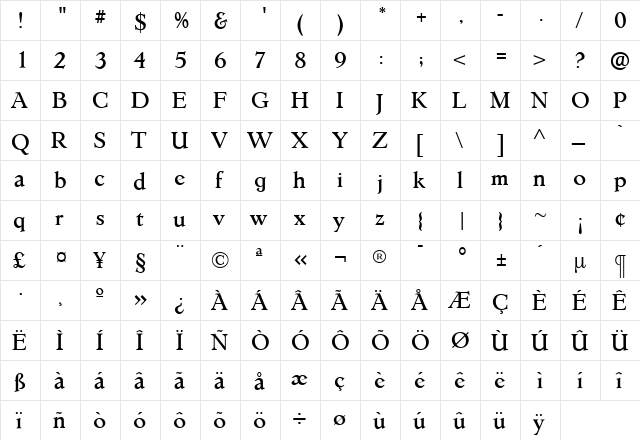
ErasmusMedium Regular
Design Context for ErasmusMedium Typeface
ErasmusMedium is a composed and adaptable typeface that performs quietly and consistently across a wide range of design contexts.